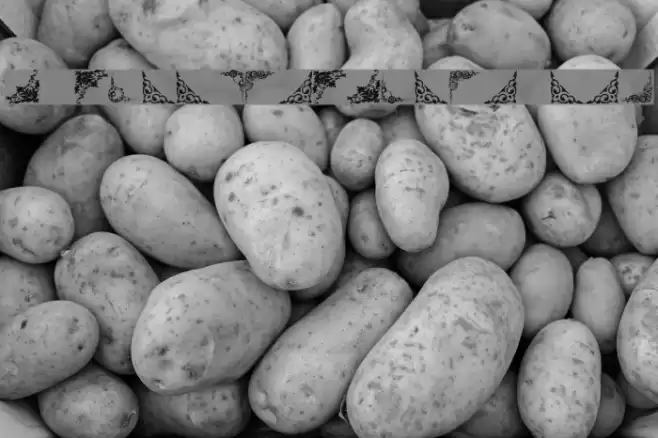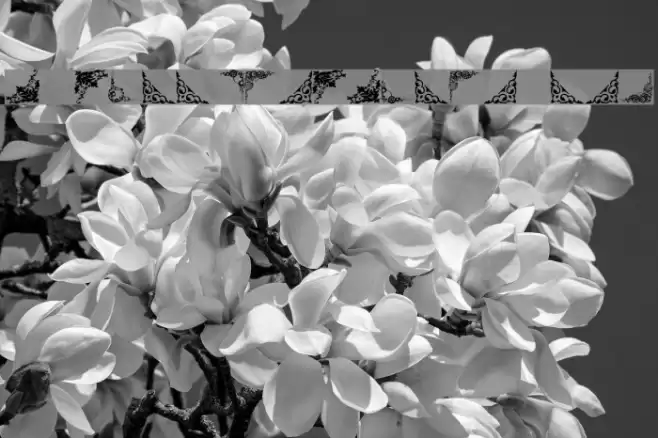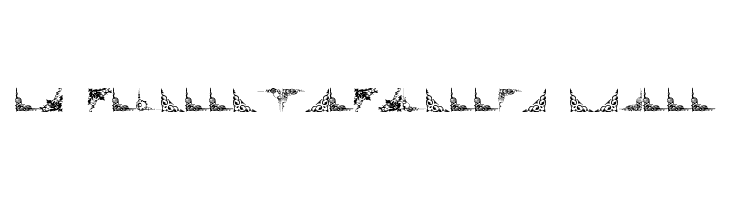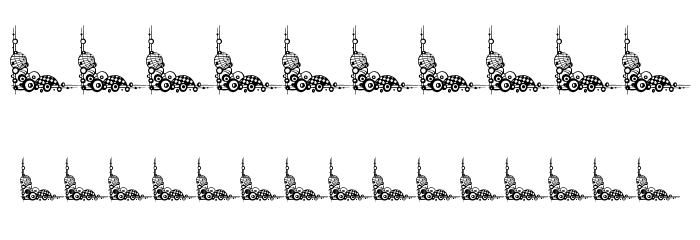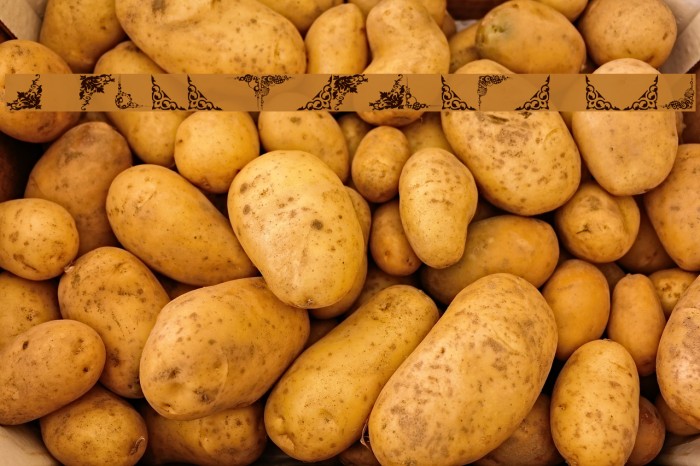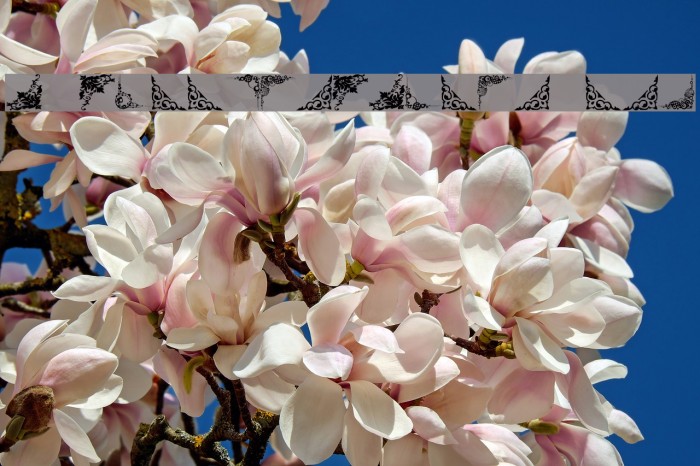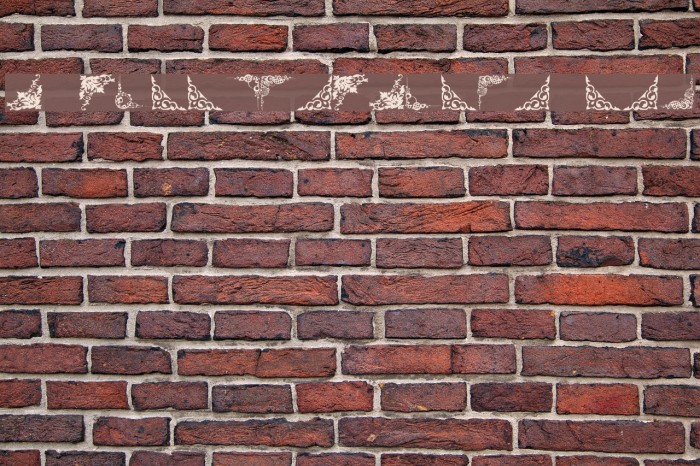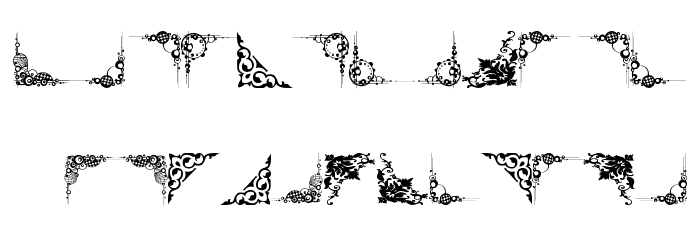
Vintage Decorative Corners 24 Font
Vintage Decorative Corners 24 Description
Highly ornate, decorative corner elements featuring intricate swirls, floral motifs, and vintage embellishments. Each character is represented by a unique corner design, emphasizing elaborate Victorian or Art Nouveau influences with bold, black lines and detailed patterns.
Ornate vintage decorative corners with intricate detailing from Uncategorized fonts.
- Proposed Projects: Wedding invitations, certificates, vintage posters, book covers, decorative frames, scrapbooking, branding for luxury products.
- Overall Style: Vintage, Decorative
- Use Case: Borders, Frames, Decorative accents